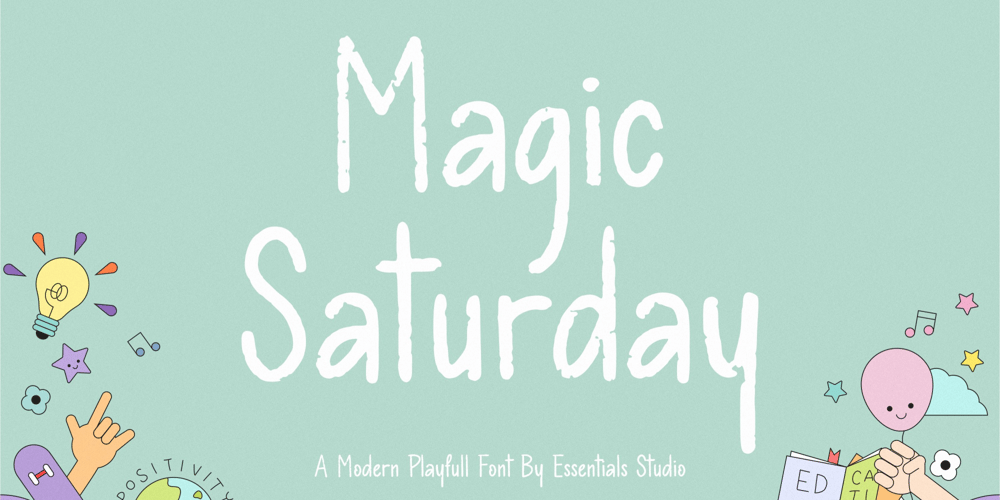
Magic Saturday
Magic Saturday font
Magic Saturday Font Family was designed by Annas Rifky Anhar and published by Essentials Studio. Magic Saturday contains 1 styles and family package options. Introducing by Essentials StudioMagic Saturday Is a A Playfull Handwritten FontMagic Saturday is perfect for product packaging, branding project, megazine, social media, wedding, or just used to express words above the background.